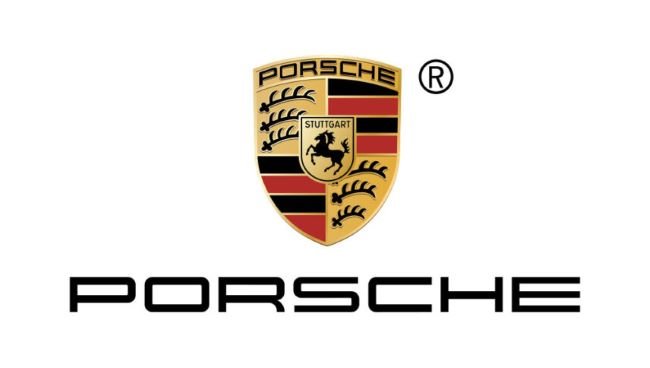
Porsche font — a geometric, clean sans-serif that the source identifies as a direct download — is the typography of a brand that has maintained a position of supreme desirability in the automotive world for seven decades by refusing to compromise the engineering integrity of its products or the clarity of their visual identity. The letterforms share the same design philosophy as the cars: precise, functional, beautifully proportioned, with no element present that does not serve the whole. Where other luxury automotive brands have leaned into baroque ornamentation or aggressive futurism to signal their premium status, Porsche has consistently chosen the more difficult path of communicating excellence through refinement alone. The freely available Porsche Font brings this clean geometric precision to creative work.